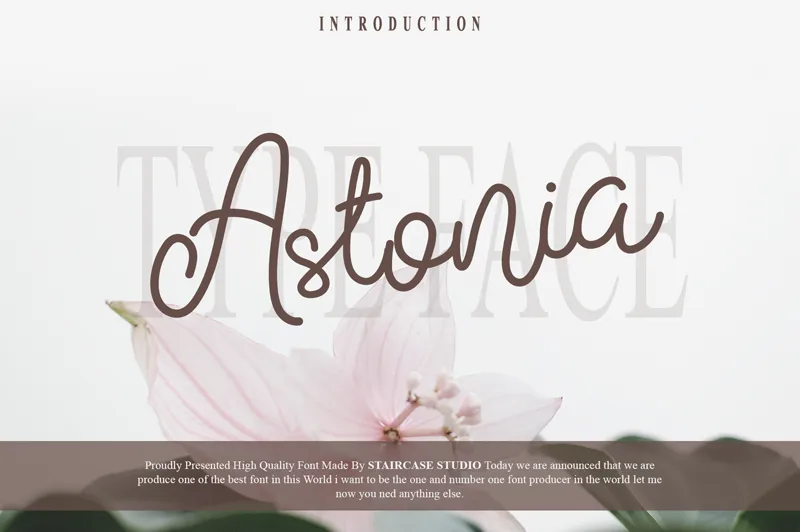
Astonia, crafted by Dora Typefoundry, stands as a testament to elegance in the realm of serif fonts. Its letters dance with a dynamic rhythm, each curve and corner tailored to exude sophistication. The serifs are thoughtfully designed, bringing a classic touch that complements the contemporary flair of its overall structure. This font's bold character strokes make a confident statement on any page while maintaining an air of approachability and warmth.
Its versatility shines across various applications-Astonia is equally at home in the pages of a luxury magazine as it is anchoring the branding for high-end products or services. It would also lend itself beautifully to literary covers, lending them an air of distinction and grace. Astonia's aesthetic appeal lies in its balance between timeless tradition and modern refinement-a perfect choice for those seeking to convey quality and style with just a few well-chosen letters.